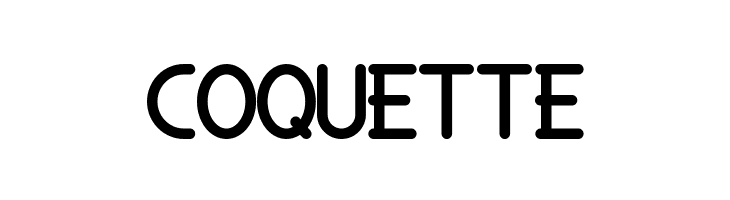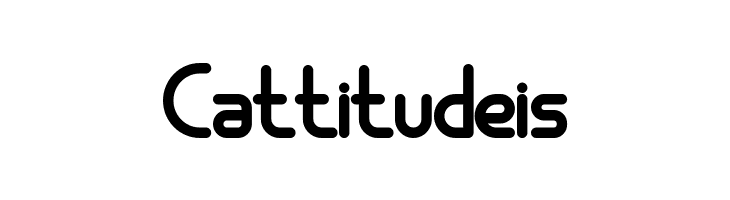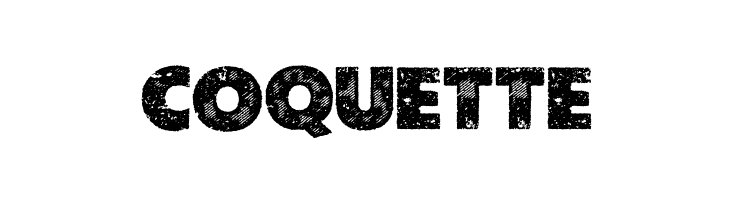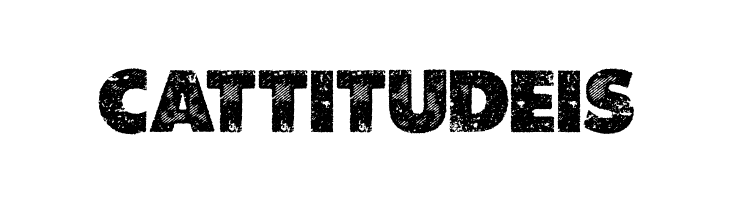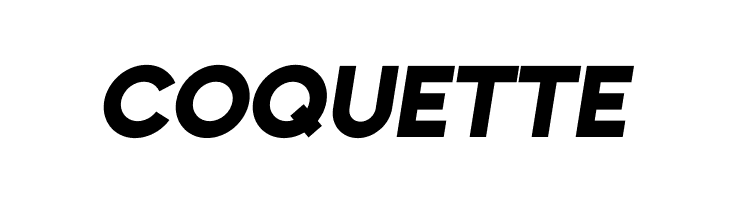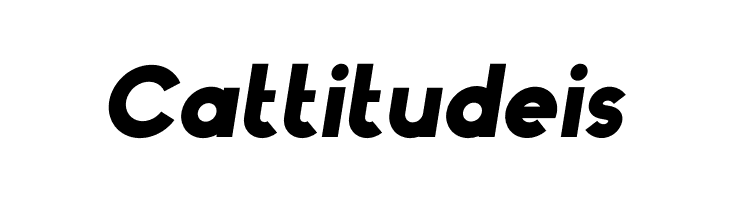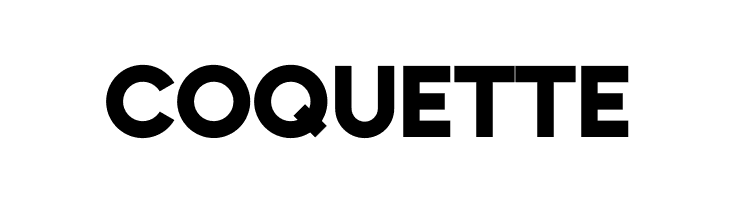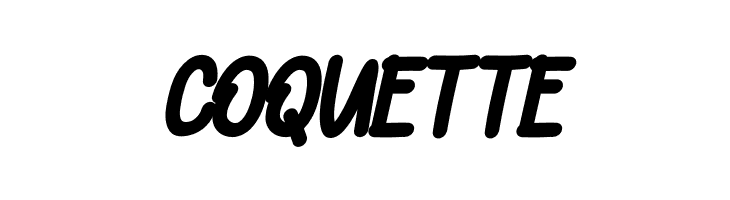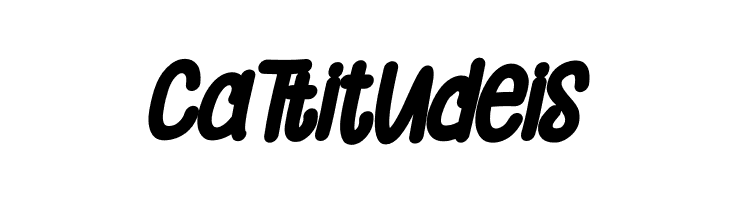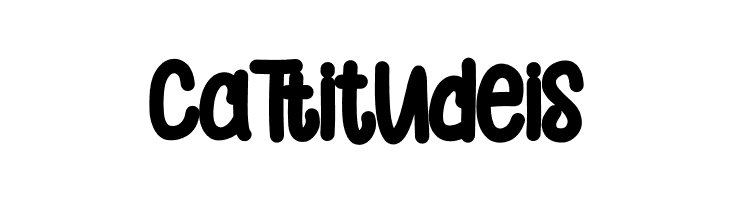
A bold, impactful font with thick strokes and rounded edges.
A bold, expressive script font with elegant curves and dynamic flow.
An elegant script font with flowing, cursive strokes and graceful curves.
A whimsical and artistic font with elongated, playful characters.
A bold, modern sans-serif typeface with clean lines and uniform stroke width.
A bold, serif font with thick strokes and rounded serifs, offering a classic yet modern appeal.
A bold stencil font with geometric shapes and distinct breaks, ideal for impactful designs.
A bold, classic serif font with strong, well-defined characters.
A bold, condensed serif font with strong strokes and high contrast.
An elegant, bold script font with flowing, cursive strokes and high contrast.
An elegant script font with flowing, cursive strokes and intricate flourishes.
An elegant script font with flowing, cursive lines and intricate flourishes.
A bold, modern font with strong geometric shapes and clean lines.
A bold, high-contrast serif font with pronounced serifs and strong visual impact.
Bold, condensed font with strong vertical emphasis and medium contrast.
A bold, rounded typeface with a modern and friendly appearance.
A bold, slanted font with sharp angles and dynamic energy.
A bold serif font with high contrast and strong serifs, offering a classic yet modern look.
A bold, extended font with thick strokes and a modern, assertive style.
A bold, classic serif font with strong, pronounced strokes and excellent readability.